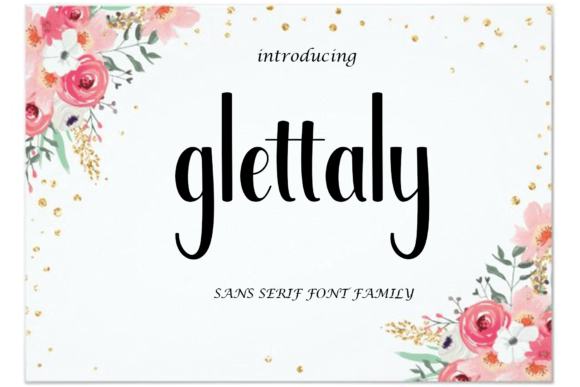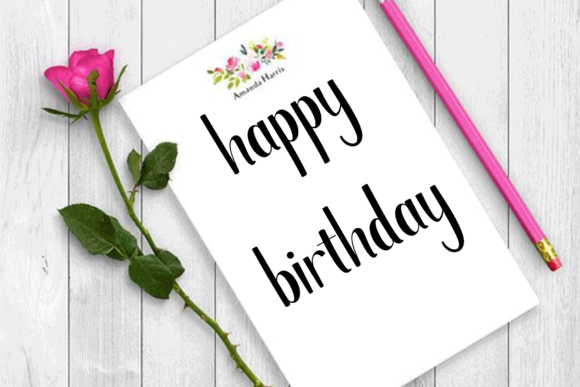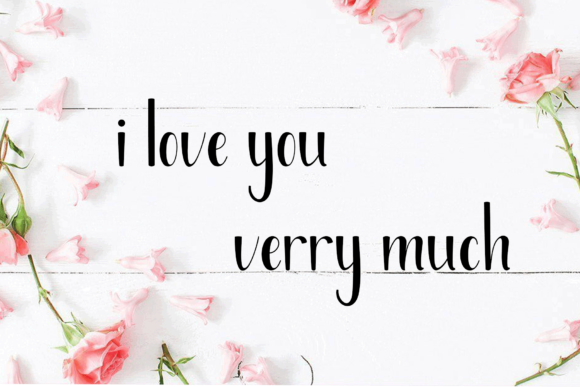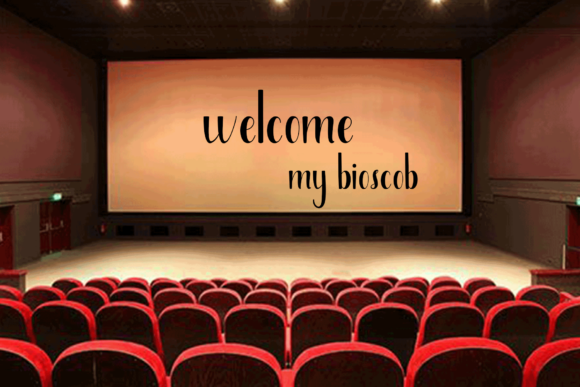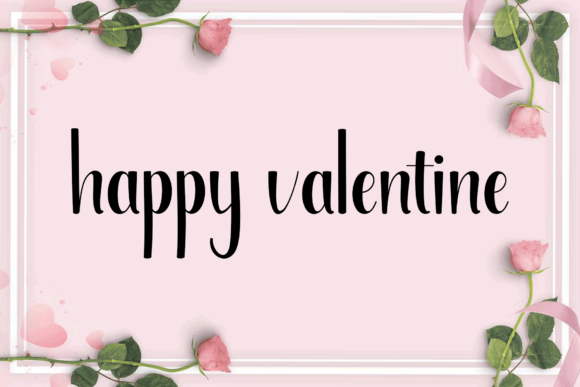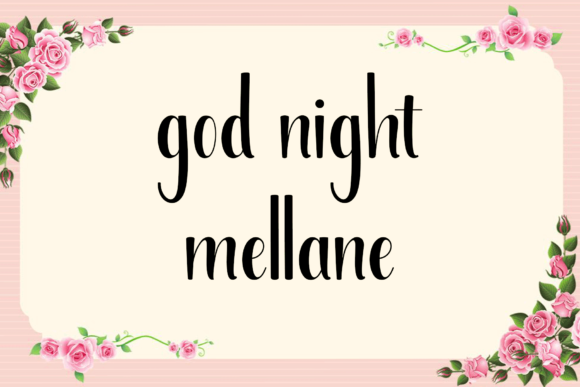
Glettaly Font: Elevate Your Valentine’s Craft with Elegance
Are you looking for a font that adds a touch of romance and elegance to your Valentine’s Day crafts? Look no further than Glettaly Font! This simple yet sophisticated sans serif font is perfect for designers and crafters who want to create beautiful and memorable projects. In this article, we’ll explore the features of Glettaly Font and how you can use it to take your Valentine’s craft to the next level.
What is Glettaly Font?
Glettaly Font is a modern sans serif font with a romantic twist. Its clean lines and elegant curves make it perfect for a variety of design projects, from Valentine’s Day cards and invitations to wedding stationery and more. The font is highly versatile and can be used for both personal and commercial projects.
Key Features of Glettaly Font
• Simple yet elegant design: Glettaly Font features a clean and minimalist design that exudes elegance and sophistication.
• Romantic twist: The font’s subtle curves and rounded edges give it a romantic feel, perfect for Valentine’s Day and wedding projects.
• Sans serif design: The font’s sans serif design makes it highly legible and versatile, suitable for a wide range of design projects.
How to Use Glettaly Font in Your Valentine’s Craft
Glettaly Font is perfect for a variety of Valentine’s Day crafts, including:
• Valentine’s Day cards and invitations: Use Glettaly Font to create beautiful and romantic Valentine’s Day cards and invitations.
• Wedding stationery: The font’s elegant design makes it perfect for wedding stationery, including wedding invitations, save-the-date cards, and more.
• Digital designs: Use Glettaly Font in your digital designs, such as social media graphics, blog posts, and more.
• Print materials: The font is also suitable for print materials, including brochures, flyers, and more.
Tips for Using Glettaly Font
• Pair with other fonts: Experiment with pairing Glettaly Font with other fonts to create a unique and interesting design.
• Use different colors: Try using different colors to add a pop of color to your design and make it more visually appealing.
• Experiment with different sizes: Play around with different font sizes to create visual hierarchy and add emphasis to your design.
Why Choose Glettaly Font?
So why choose Glettaly Font for your Valentine’s craft? Here are just a few reasons:
• Elegant design: Glettaly Font features an elegant and sophisticated design that’s perfect for Valentine’s Day and wedding projects.
• Highly versatile: The font is highly versatile and can be used for a wide range of design projects.
• Easy to read: The font’s clean lines and sans serif design make it highly legible and easy to read.
In conclusion, Glettaly Font is a beautiful and elegant sans serif font with a romantic twist. Its simple yet sophisticated design makes it perfect for Valentine’s Day crafts, wedding stationery, and more. With its high versatility and ease of use, Glettaly Font is a great choice for designers and crafters who want to create beautiful and memorable projects. So why not give it a try and take your Valentine’s craft to the next level?